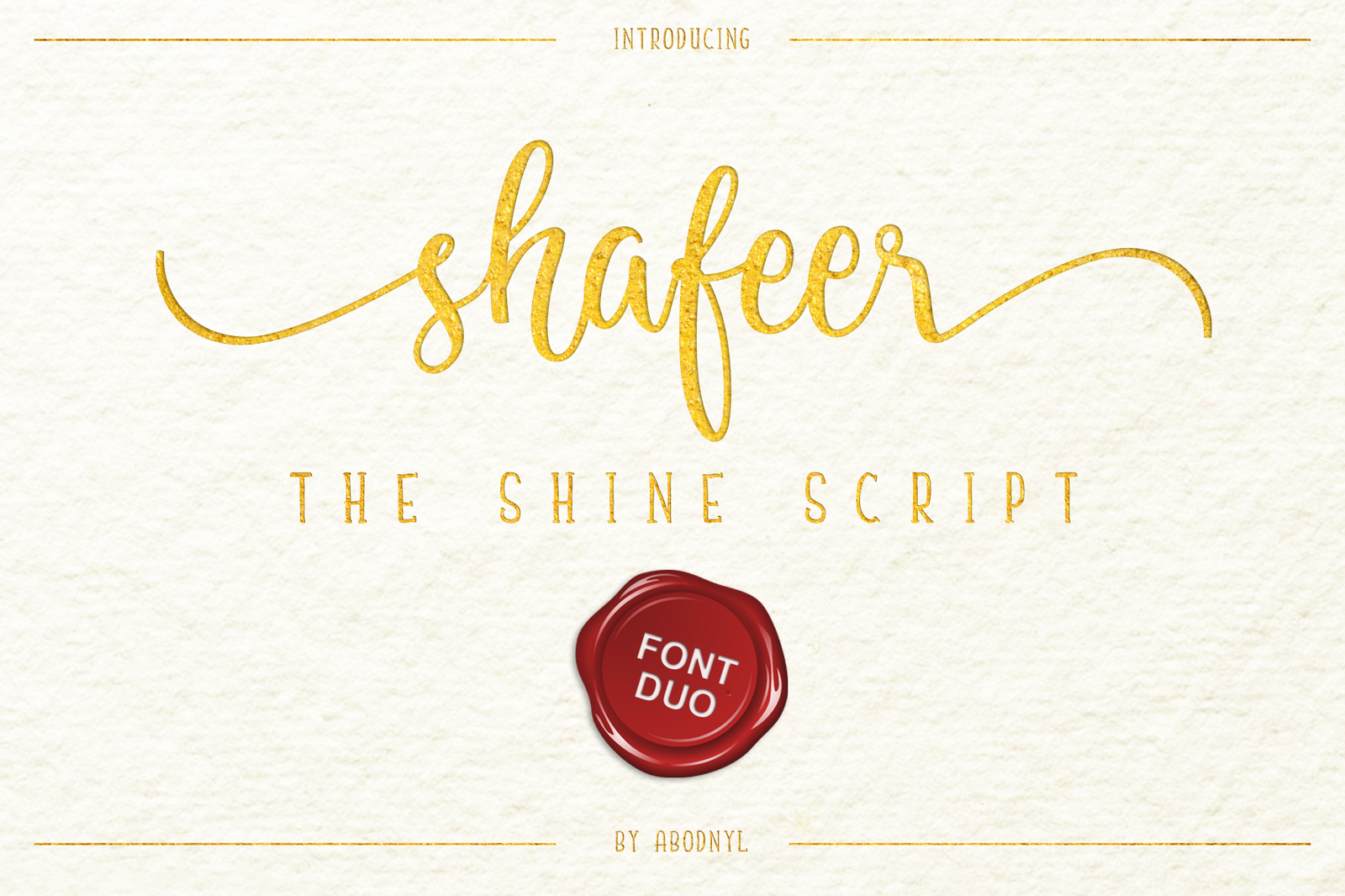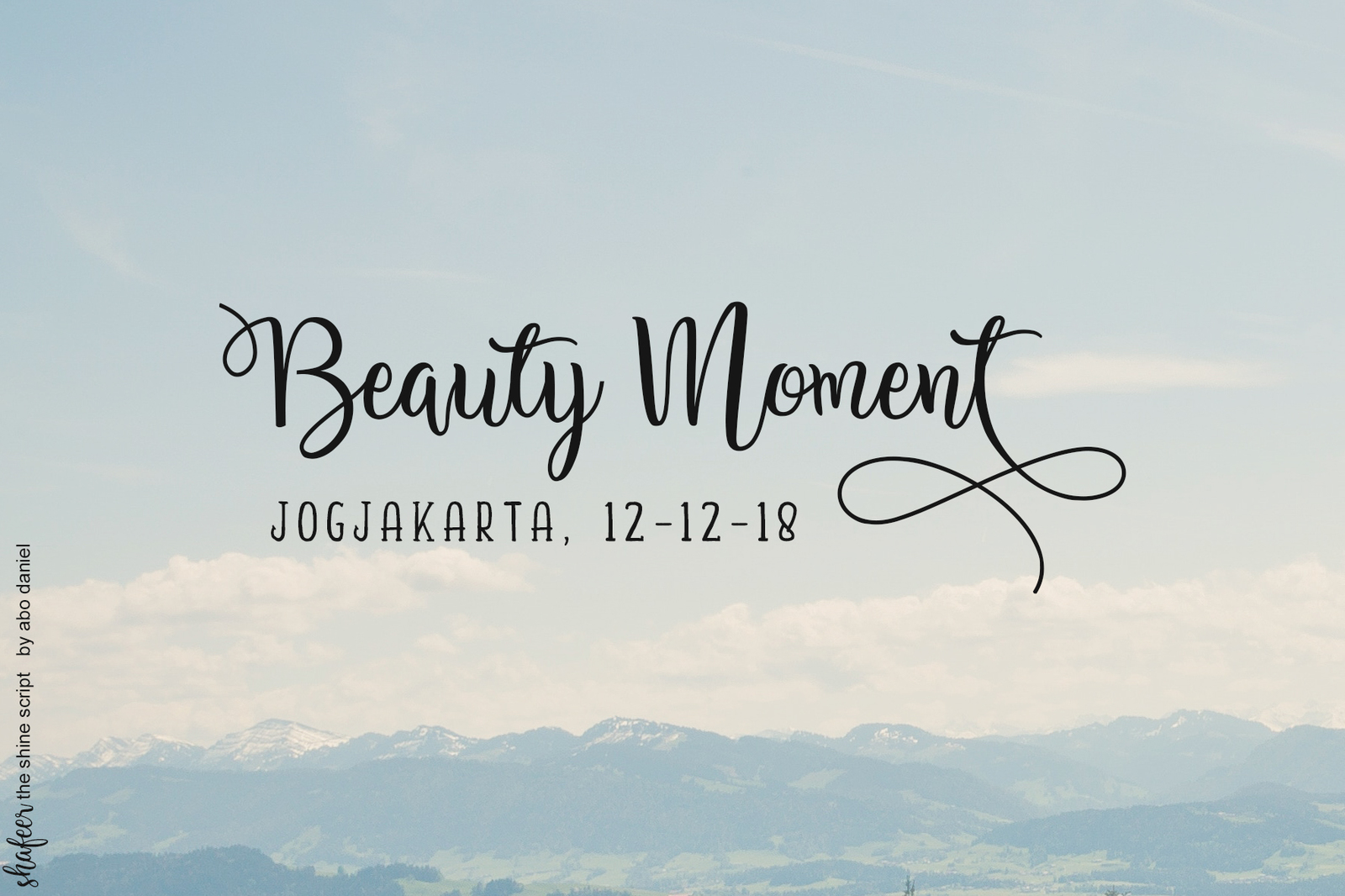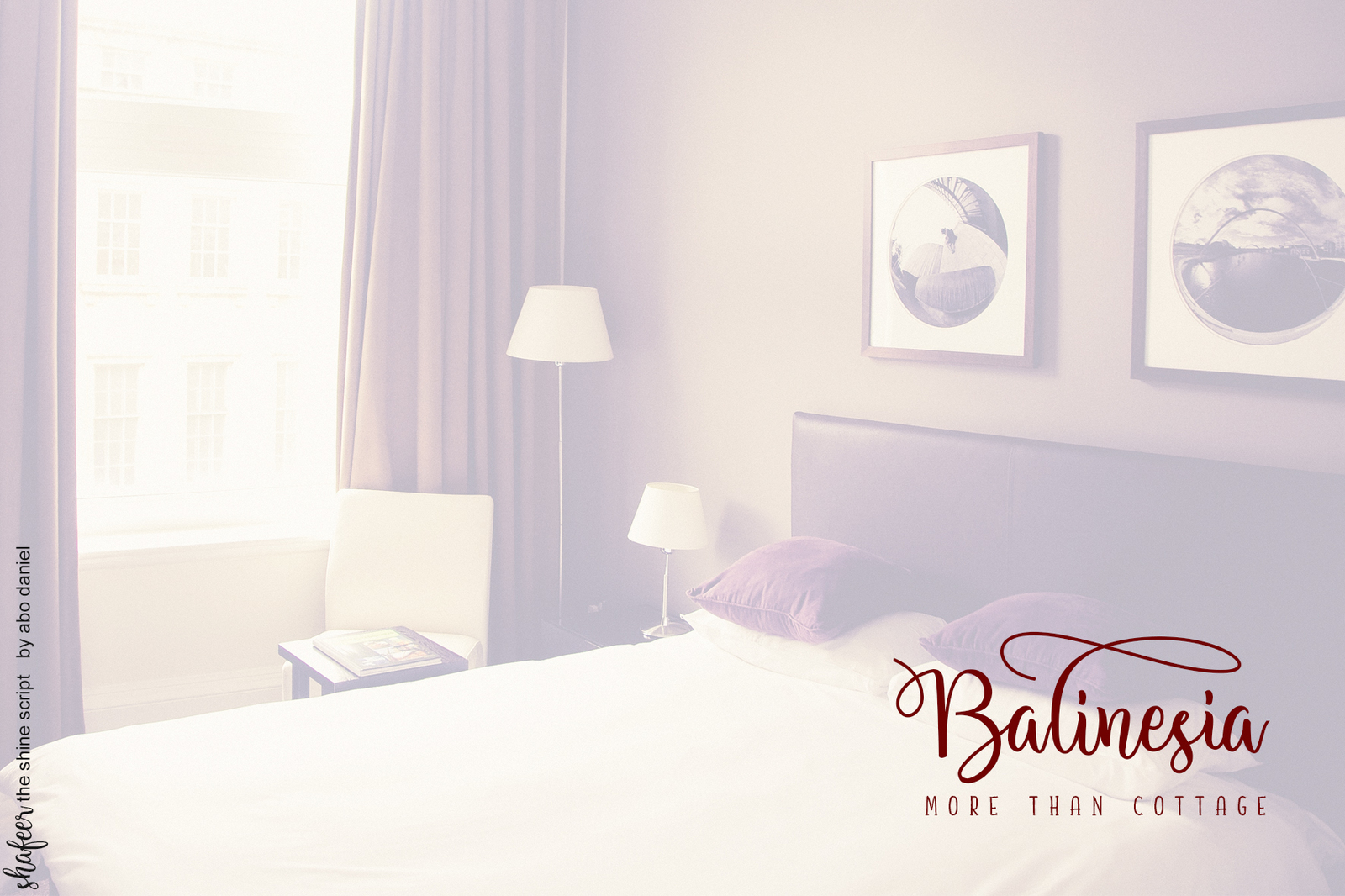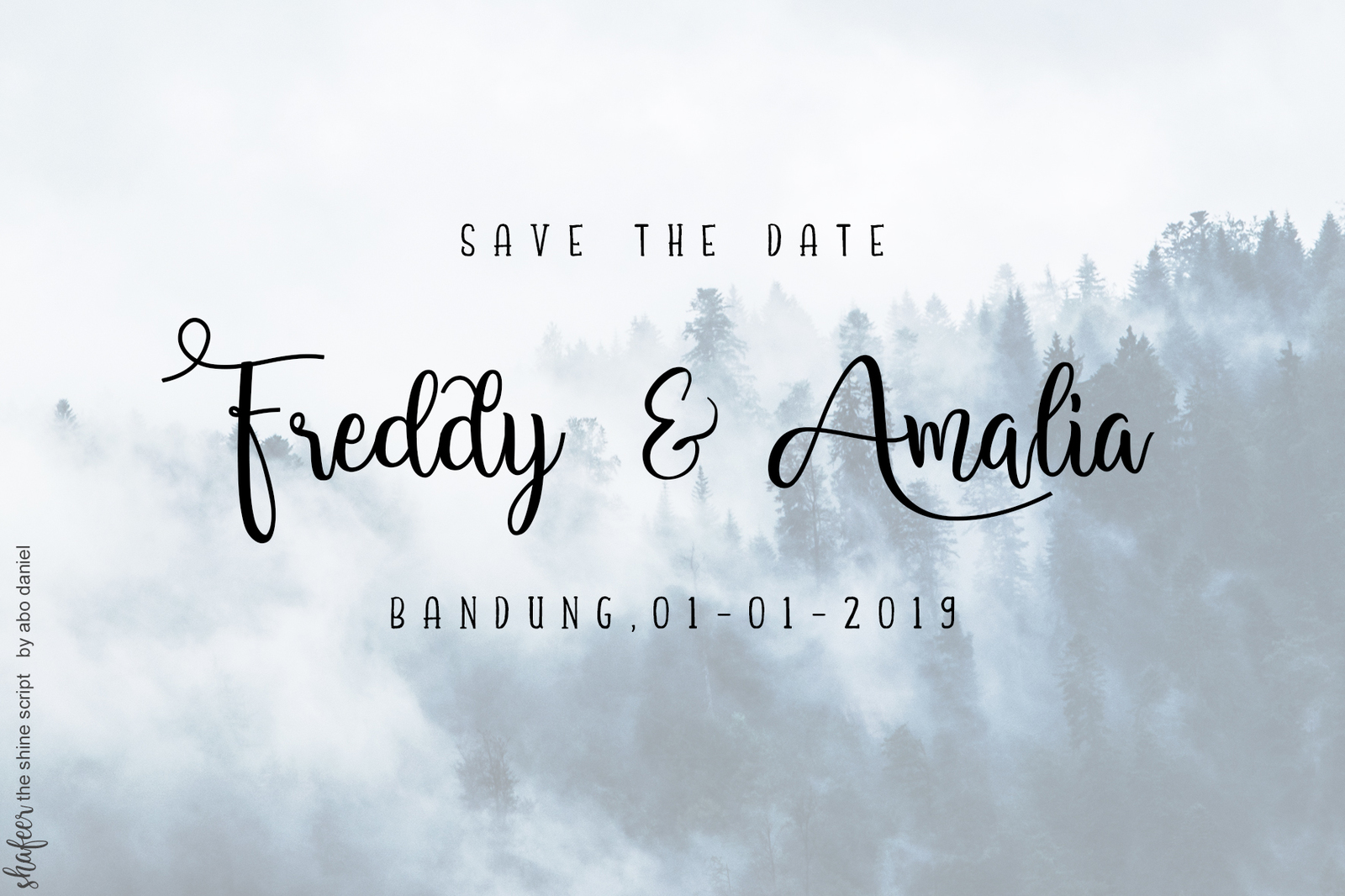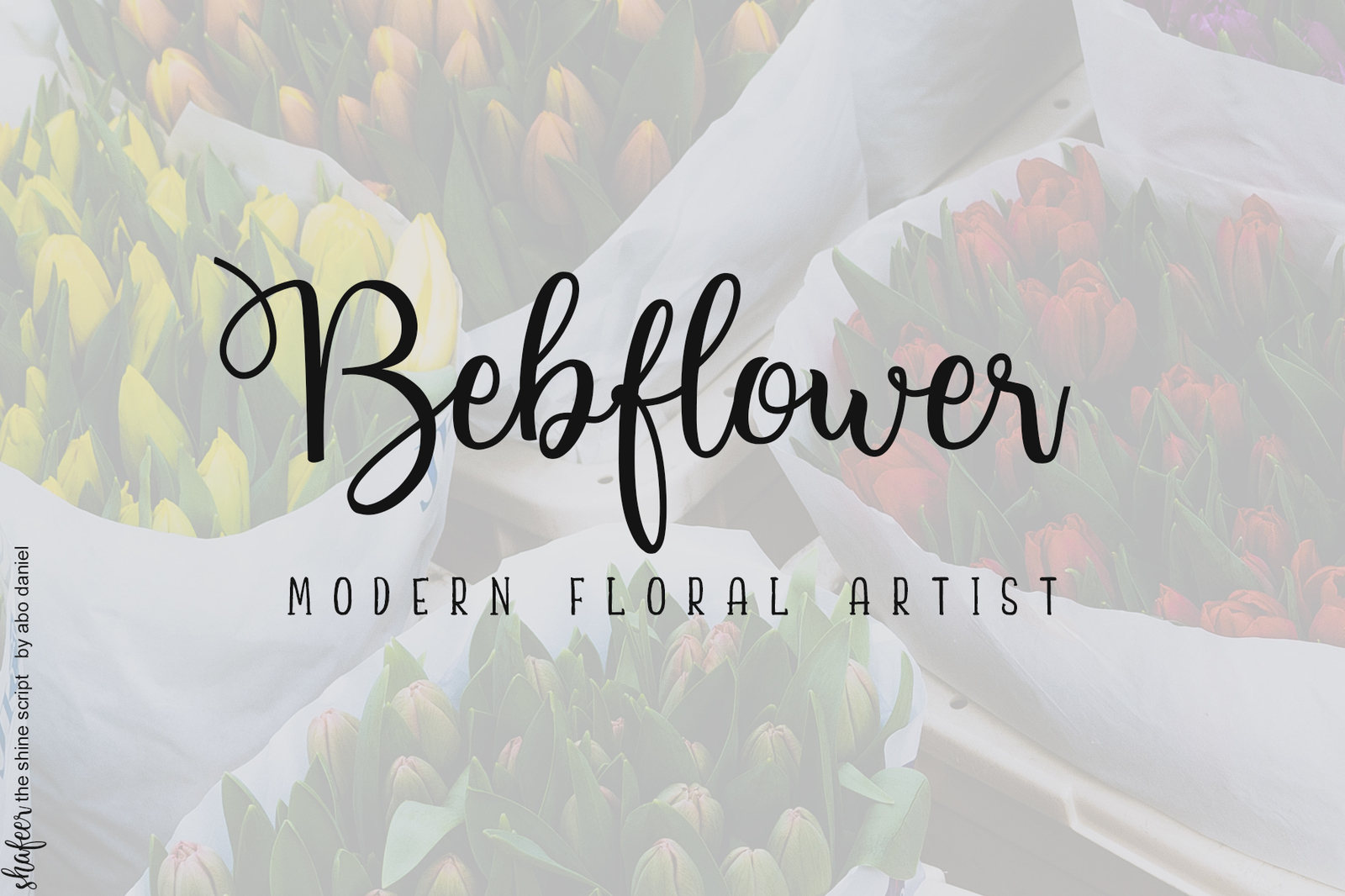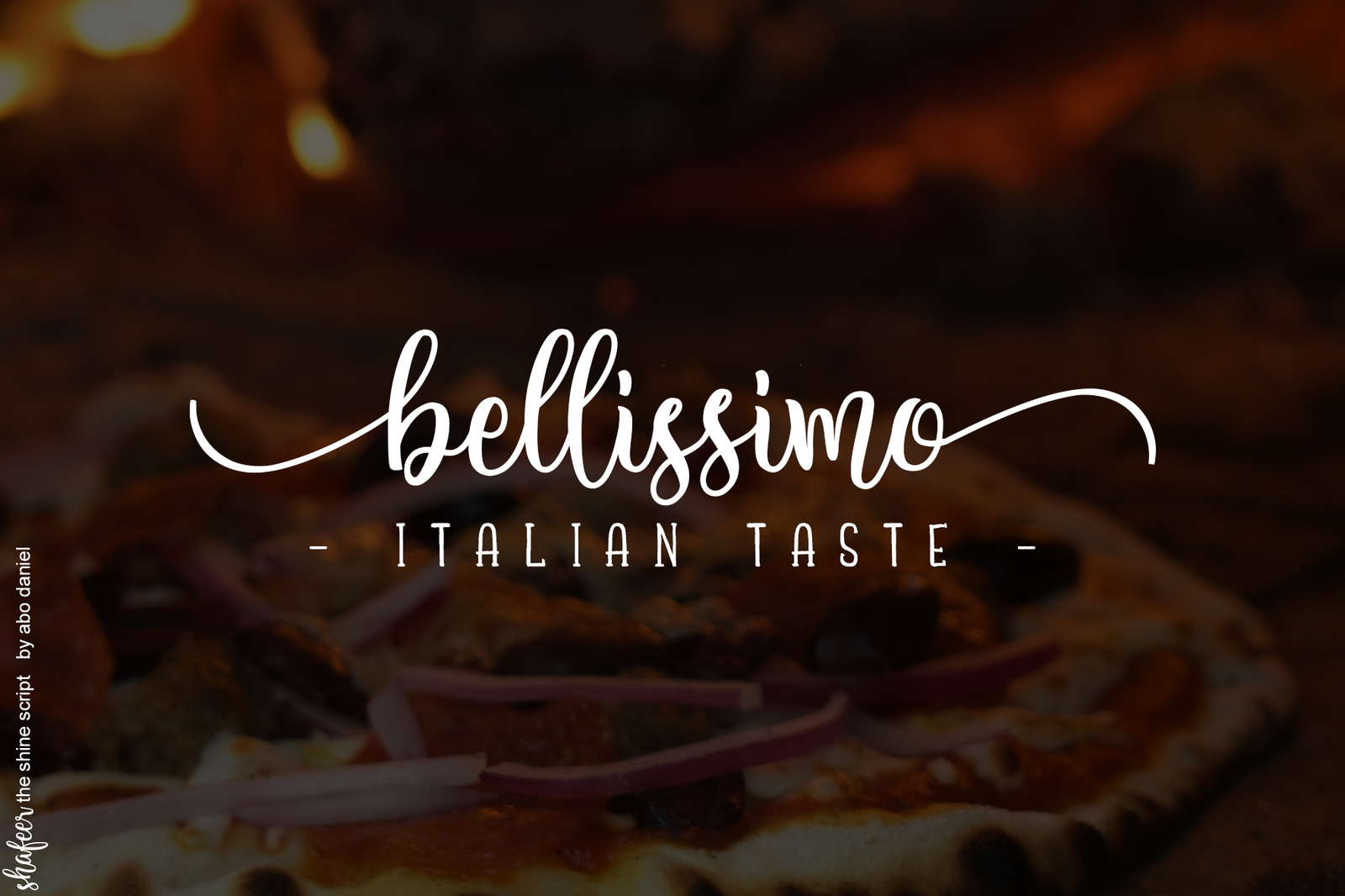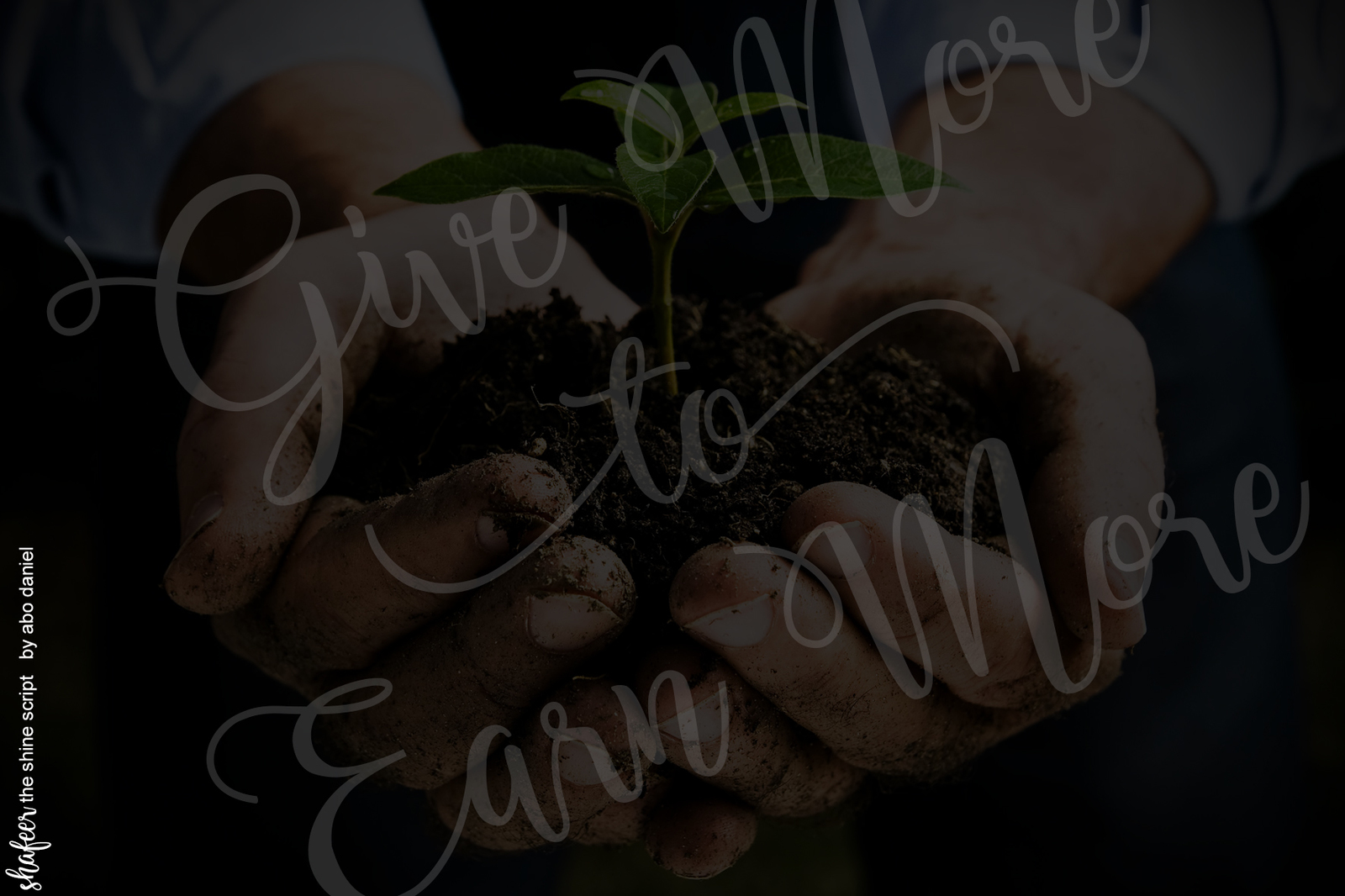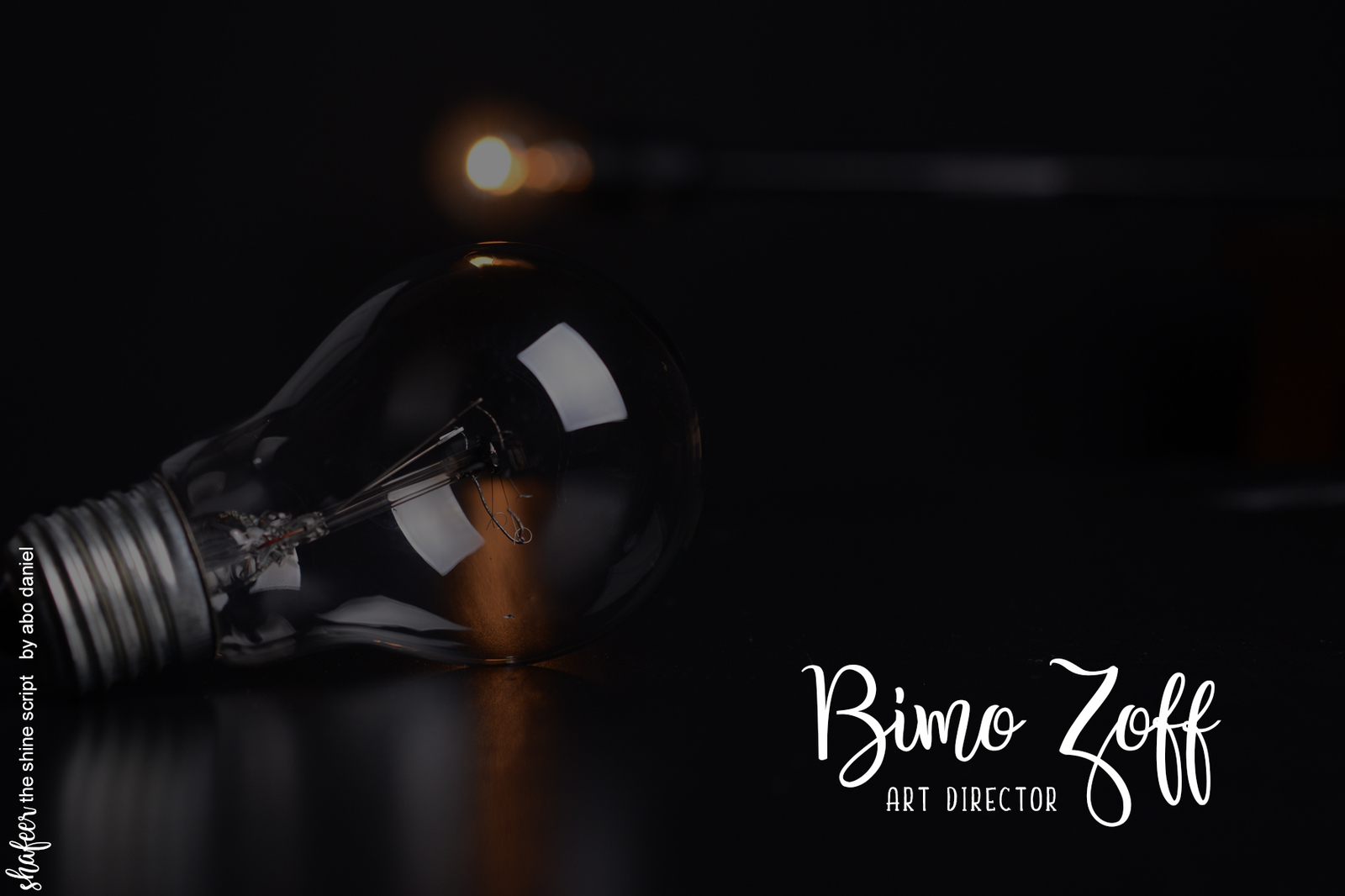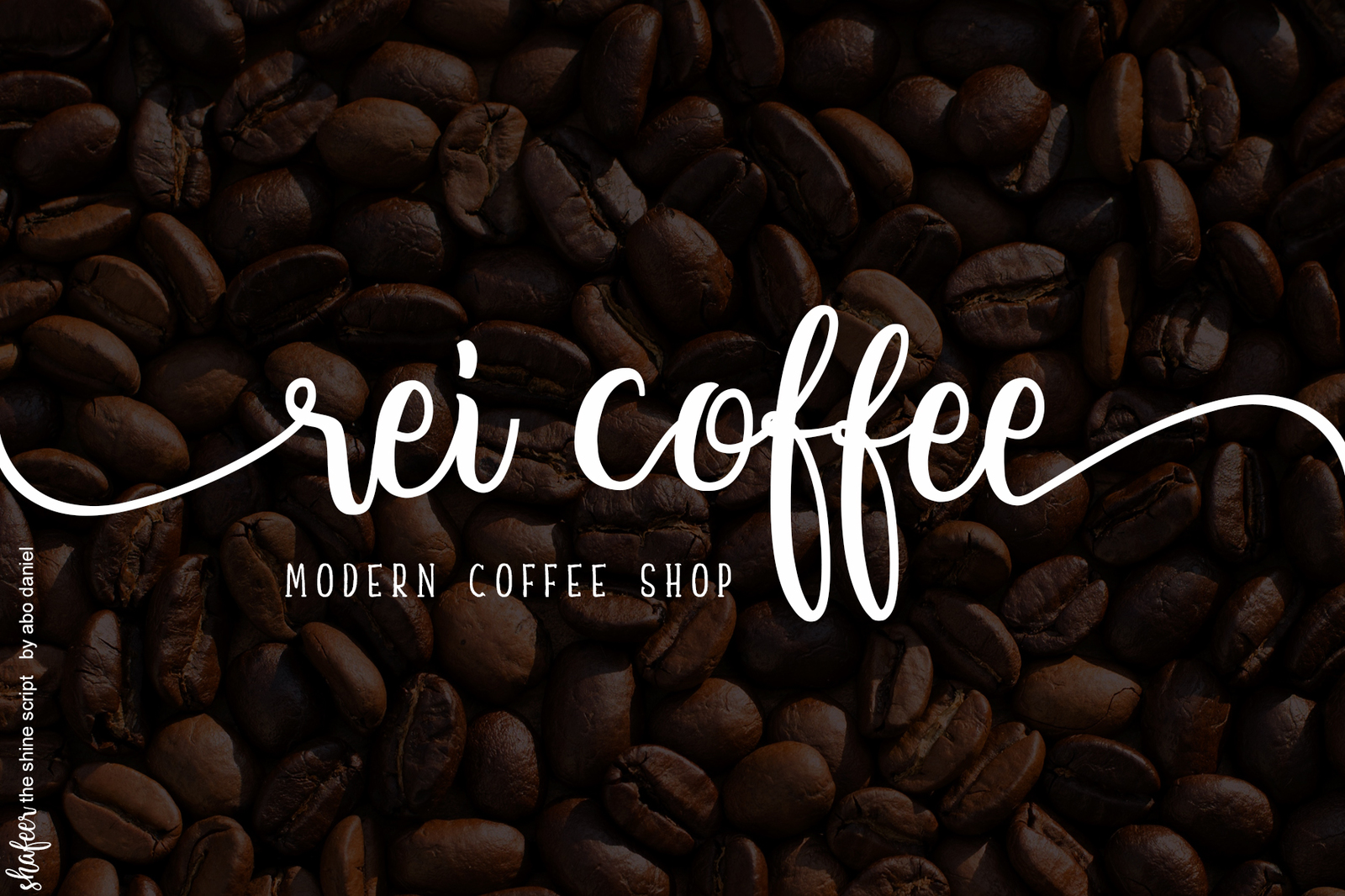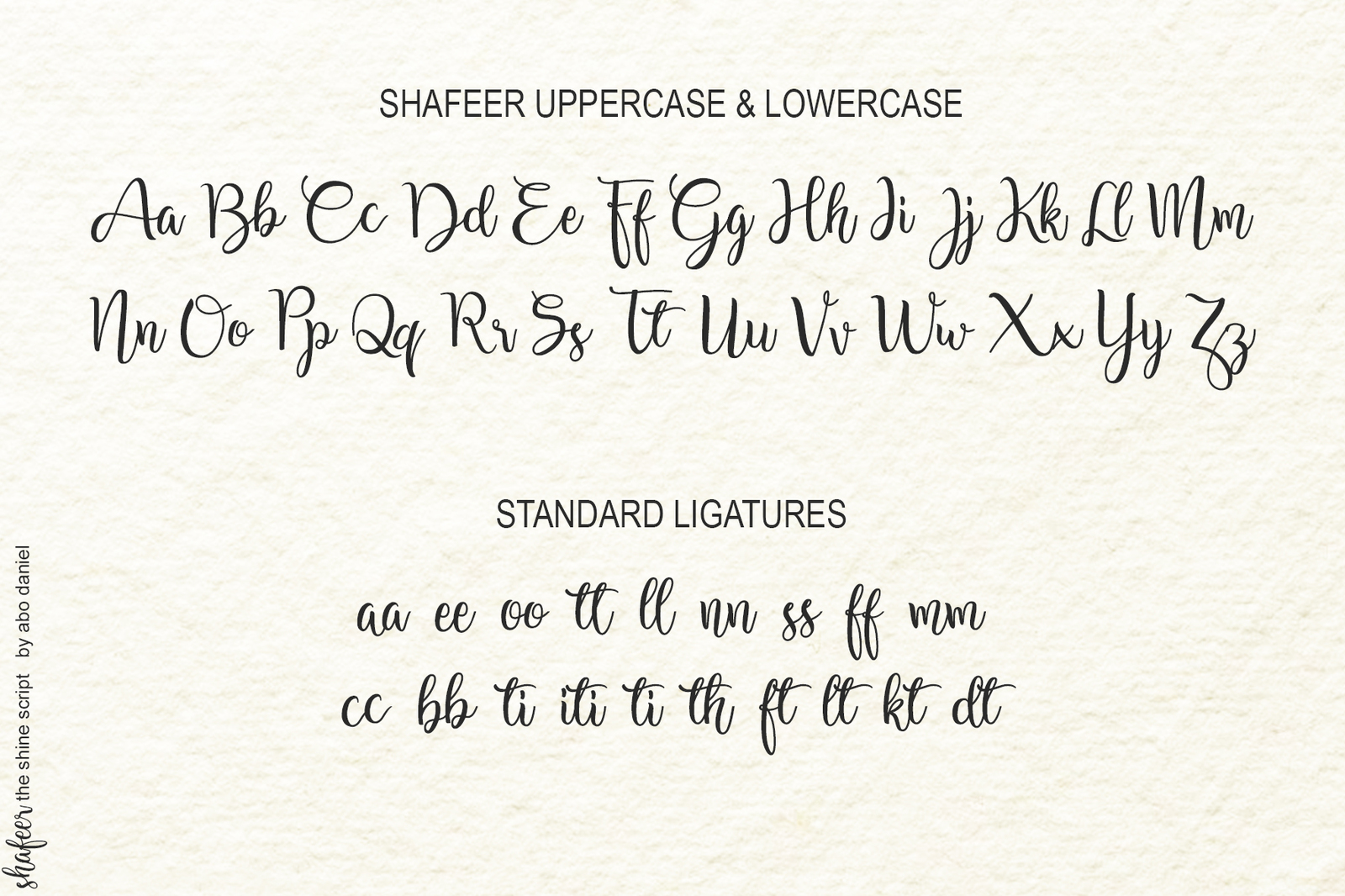
Shafeer -Perfect Font Duo-
Introducing Shafeer the shine script Font Duo.
Its very perfect couple fonts
Opentype Features
Shafeer was built with OpenType features. It has an alternate upper and lowercase character set, Swashes, titling alternates, numbers, punctuation, ligatures and it also supports multilingual.
You only need adding underscore 2x before or after the lowercase character to make the swash. for example __a or a__.
Best For
It can be used for branding, photography, invitations, quotes, watermarks, advertisements, product designs, labels, product packaging, and much more!